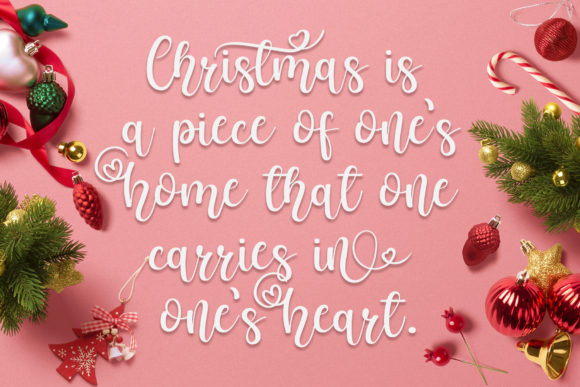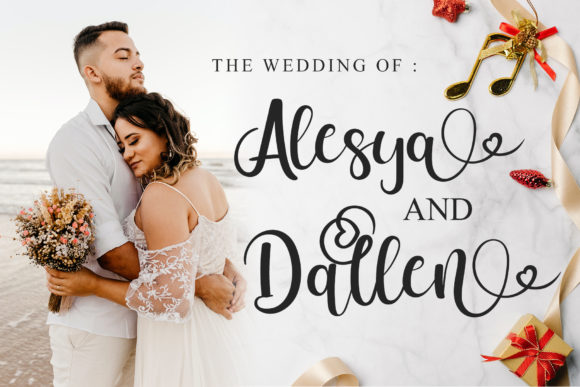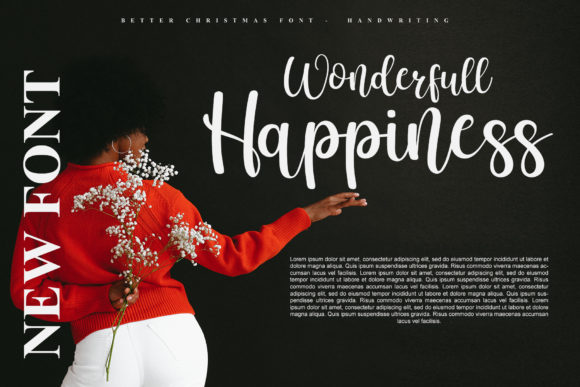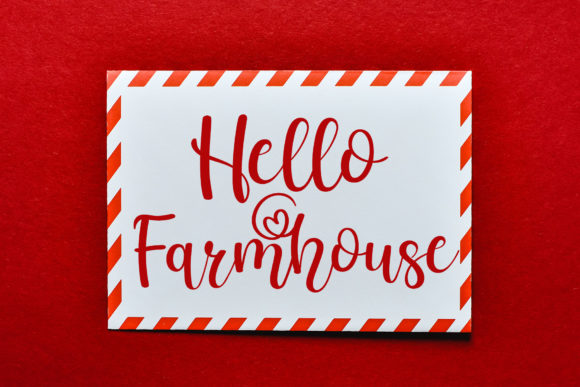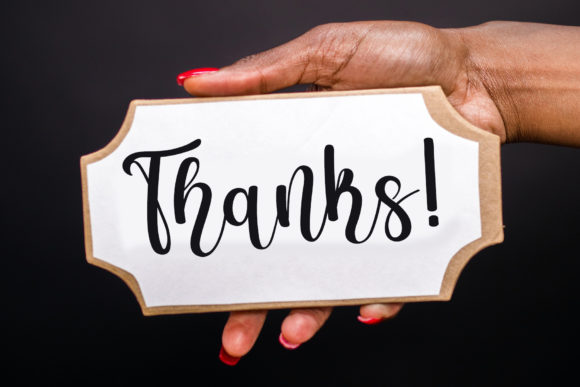
Better Christmas Font: Elevate Your Holiday Designs with Elegance
The holiday season is upon us, and with it comes the need for designers and crafters to create stunning and festive designs. One of the most crucial elements in achieving this is the choice of font. If you’re looking for a font that exudes luxury, romance, and sweetness, look no further than the Better Christmas Font. In this article, we’ll delve into the features and benefits of this beautiful calligraphy typeface and explore how it can elevate your holiday designs.
What is Better Christmas Font?
Better Christmas Font is a romantic and sweet calligraphy typeface designed to add a touch of luxury to your design projects. Its unique feature is that the characters dance along the baseline, creating a whimsical and festive feel. This font is perfect for designers and crafters who want to create stunning holiday-themed designs, such as Christmas cards, invitations, and social media graphics.
Key Features of Better Christmas Font
- PUA Encoded: The Better Christmas Font is PUA (Private Use Area) encoded, which means that you can access all the amazing glyphs and ligatures with ease. This feature makes it simple to use and customize the font to suit your design needs.
- Luxury Spark: The font’s unique calligraphy style adds a luxury spark to any design project, making it perfect for high-end designs and branding.
- Romantic and Sweet: The Better Christmas Font has a romantic and sweet feel to it, making it ideal for creating designs that are festive, yet elegant.
- Characters that Dance: The font’s characters dance along the baseline, creating a whimsical and playful feel that’s perfect for holiday designs.
Benefits of Using Better Christmas Font
Using the Better Christmas Font in your design projects offers several benefits, including:
- Unique and Eye-Catching Designs: The font’s unique style and features will help your designs stand out from the crowd and grab attention.
- Ease of Use: The PUA encoding makes it easy to access and use the font’s glyphs and ligatures, saving you time and effort.
- Customization: The font’s flexibility allows you to customize it to suit your design needs, ensuring that your designs are cohesive and on-brand.
- Time-Saving: With the Better Christmas Font, you can create stunning holiday designs in no time, saving you time and effort during the busy holiday season.
Who Can Benefit from Better Christmas Font?
The Better Christmas Font is perfect for:
- Graphic Designers: Graphic designers can use the font to create stunning holiday-themed designs for clients, including Christmas cards, invitations, and social media graphics.
- Crafters: Crafters can use the font to create beautiful holiday-themed crafts, such as handmade cards, gift tags, and decorations.
- Small Business Owners: Small business owners can use the font to create festive and engaging holiday marketing materials, such as social media graphics and email newsletters.
Tips for Using Better Christmas Font
Here are some tips for getting the most out of the Better Christmas Font:
- Experiment with Different Sizes: Experiment with different font sizes to find the perfect balance for your design.
- Pair with Other Fonts: Pair the Better Christmas Font with other fonts to create a unique and eye-catching design.
- Use in Combination with Images: Use the font in combination with images to create a visually appealing design.
The Better Christmas Font is a beautiful and elegant calligraphy typeface that’s perfect for adding a touch of luxury to your holiday designs. With its unique features, ease of use, and flexibility, it’s an ideal choice for designers and crafters looking to create stunning holiday-themed designs. Whether you’re a graphic designer, crafter, or small business owner, the Better Christmas Font is sure to elevate your designs and make them stand out from the crowd.